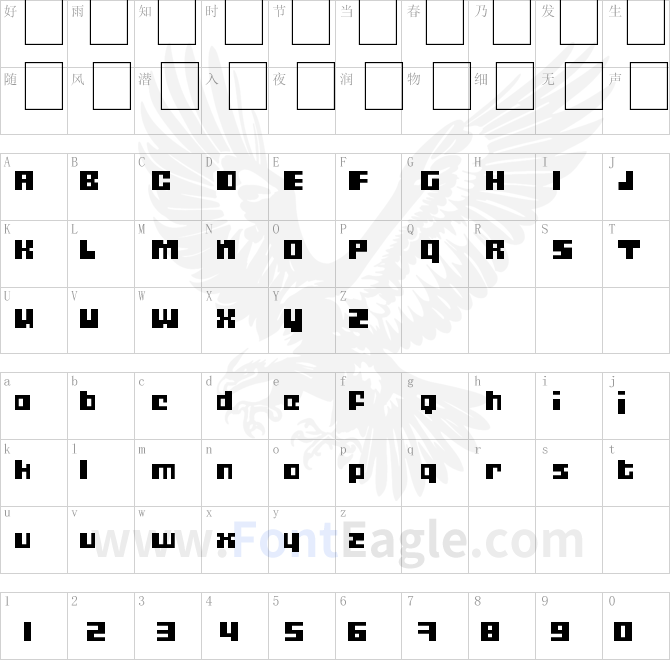
- Font name:Gubblebum
- Font Subfamily:BlacknBlocky
- Font Subfamily ID:TjardaKoster: Gubblebum BlacknBlocky: 2007
- Font Full Name:Gubblebum BlacknBlocky
- Postscript:Gubblebum-BlacknBlocky